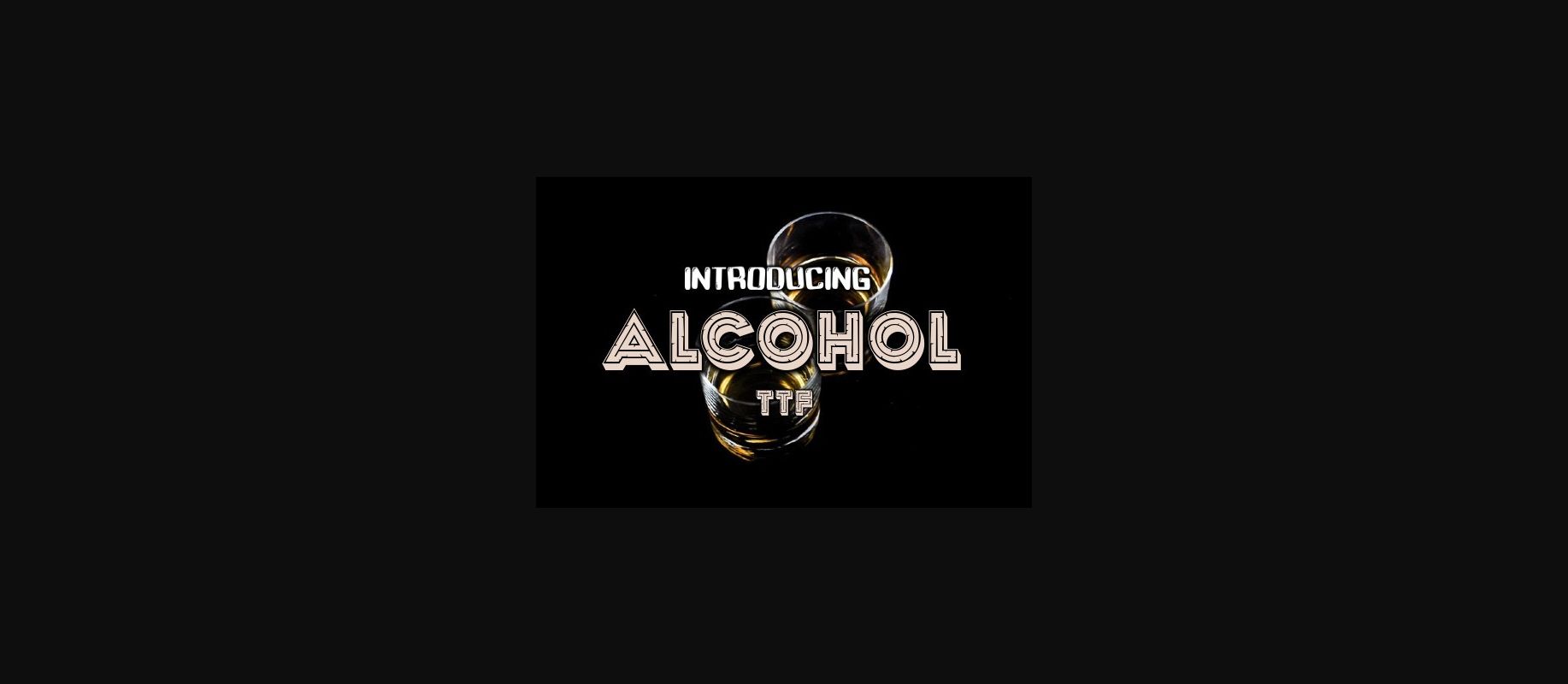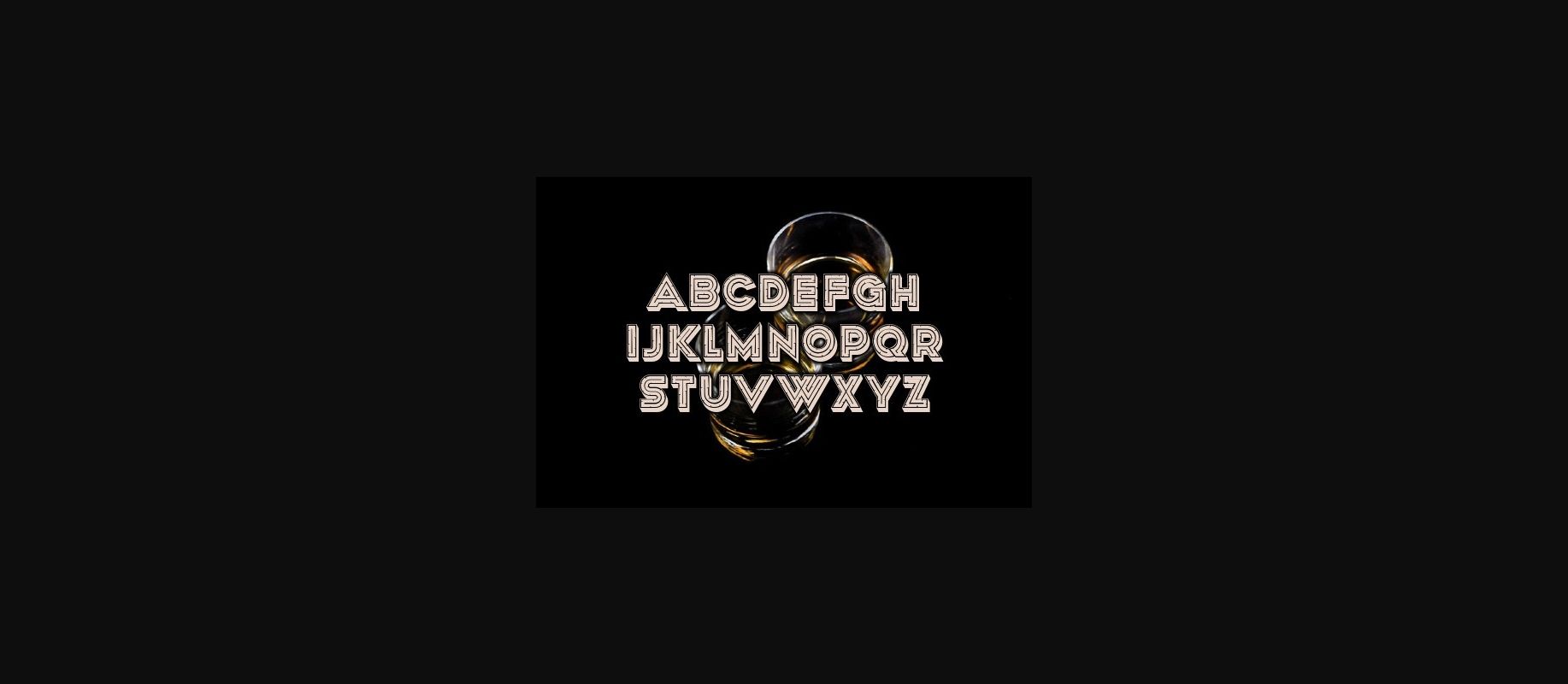
Alcohol Font
About Alcohol Font
Alcohol is a bold and assertive decorative font. This font reads as strong, confident, and dynamic and can add tons of cool character to your designs.